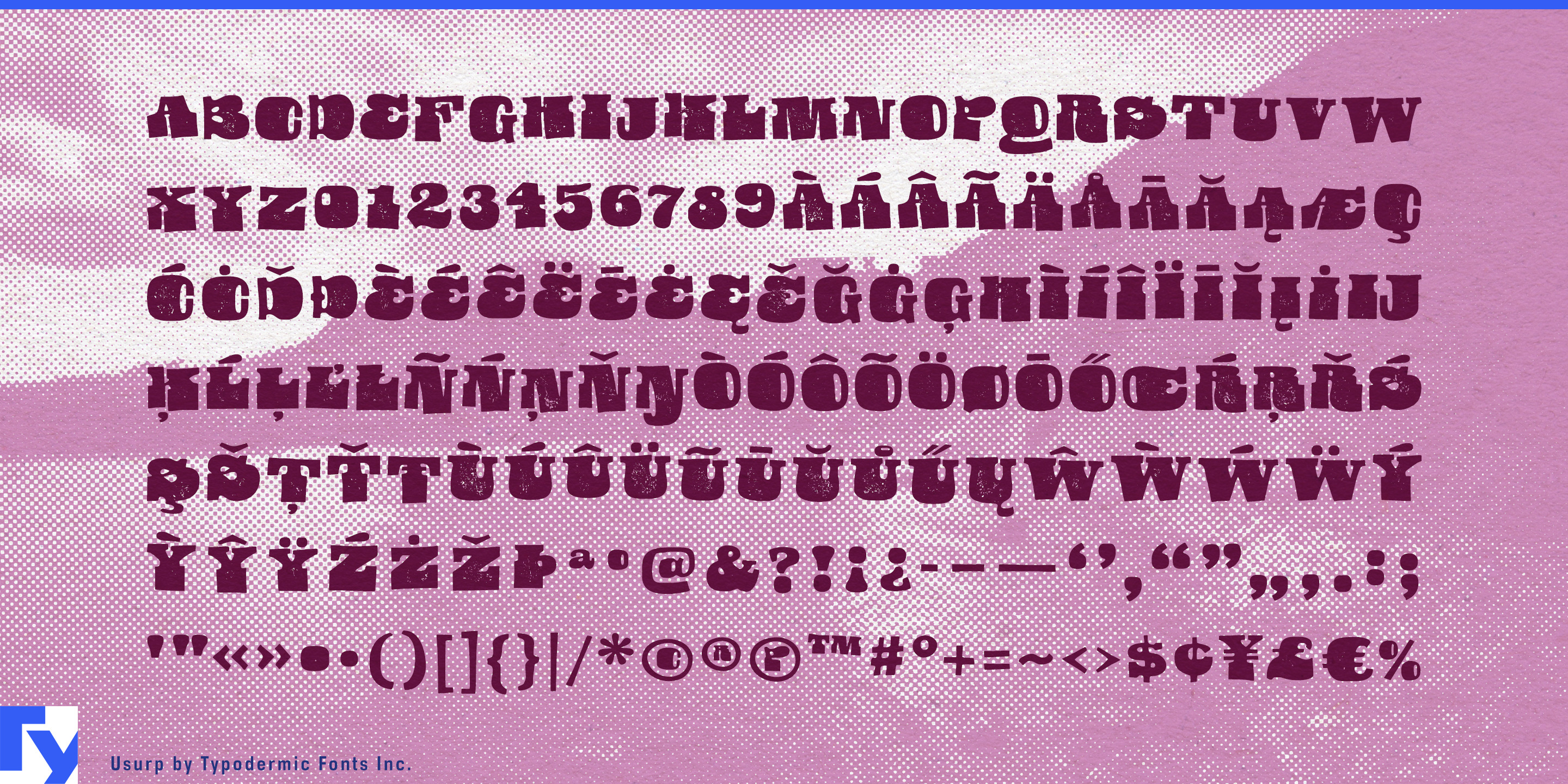
Usurp
Handmade typography often comes with baggage. It can suggest rustic craft, casual friendliness, scrapbook textures, or carefully manufactured imperfection. Usurp takes a different route. Its letters were physically cut from paper with scissors, assembled into words, scanned, and refined; the irregularity comes from construction rather than an effect applied afterward. The result is handmade without being quaint.
Usurp is heavy, crowded, and deliberately strange. Thick slab-like forms collide with distorted proportions, awkward counters, and abrupt changes of width, giving short words unusually distinctive silhouettes. At large sizes the individual letters can feel less like conventional type and more like a collection of cut shapes forced into an alphabet. There is a psychedelic quality to the results, but it comes through physical form rather than the familiar vocabulary of swirling curves and retro decoration.
That makes Usurp particularly useful for consumer packaging that needs to own the front of the pack. Confectionery, ice cream, hot sauces, snack foods, craft soft drinks, flavour-led product ranges, and more countercultural botanical brands can use it for brand names, flavour names, limited editions, and oversized campaign phrases. A quieter companion typeface can handle ingredients, descriptions, and regulatory information while Usurp does the conspicuous work.
Product families are an especially good setting. Different flavour names produce dramatically different word shapes, yet the same chunky construction keeps the range recognizably related. Across cartons, wrappers, tubs, cans, point-of-sale graphics, and launch campaigns, Usurp can provide the visual constant without making every package mechanically identical.
Entertainment branding offers another natural role. Animated comedy, surreal television, eccentric family entertainment, theatrical campaigns, streaming key art, and themed attractions often need a title treatment that can establish the tone before an image is even introduced. Usurp can make a short title look physically constructed, unstable, and slightly unruly while conventional typography handles credits, schedules, descriptions, and supporting information.
Usurp is not intended to disappear into a layout. Its dense forms and distorted rhythm are best reserved for short phrases, names, and prominent display work where immediate character matters more than quiet reading. It can sit inside an otherwise polished commercial identity and provide the part that feels touched, cut, rearranged, and slightly out of control.